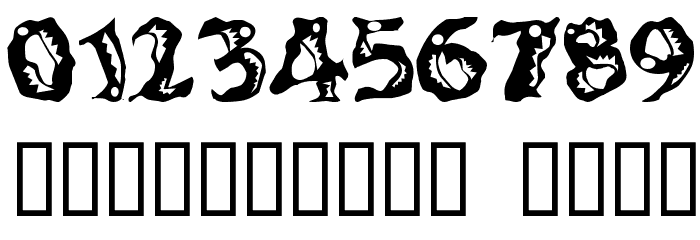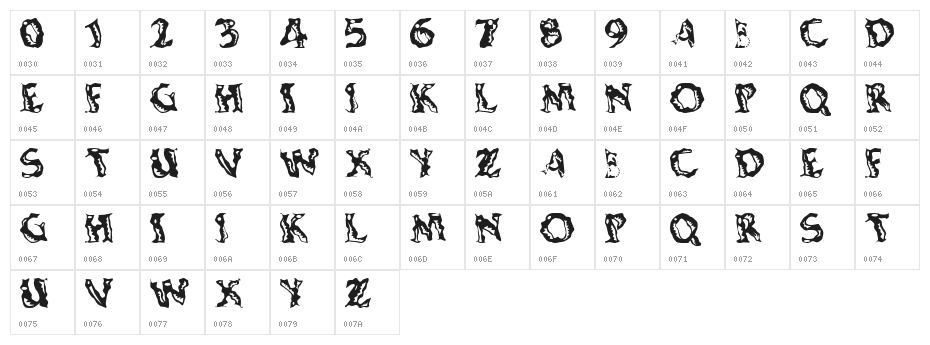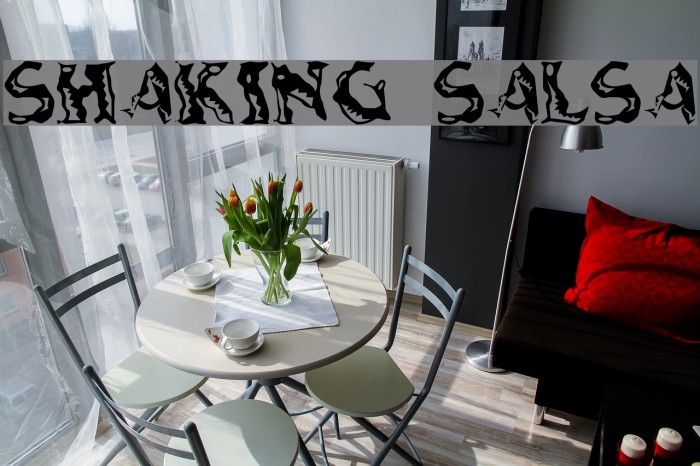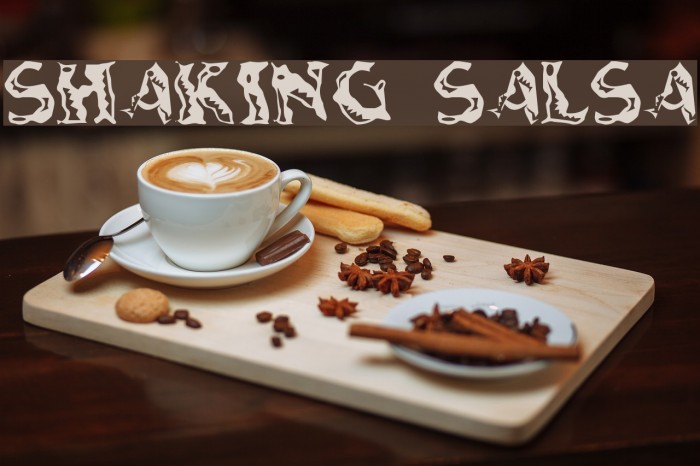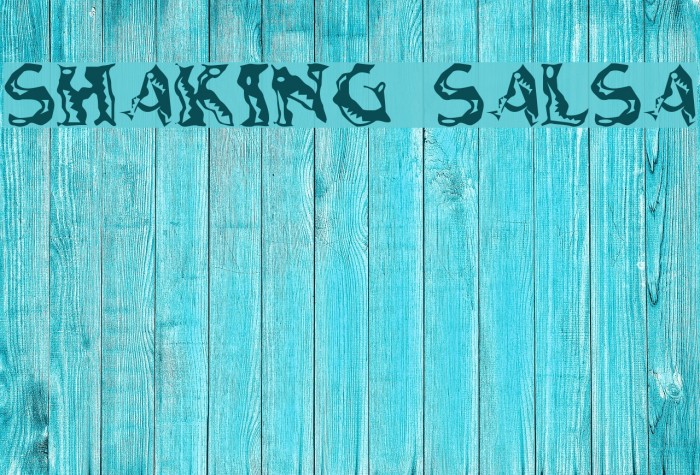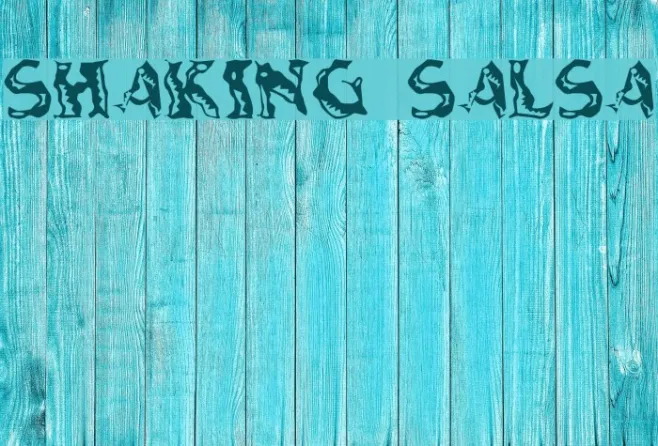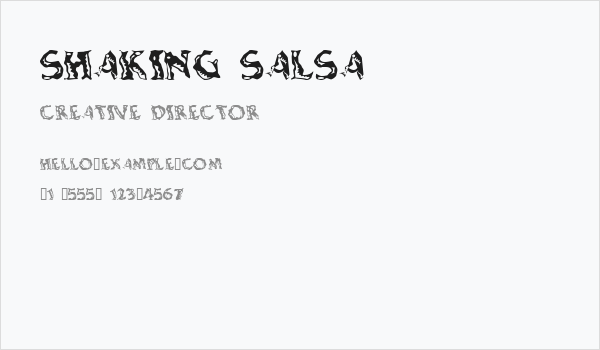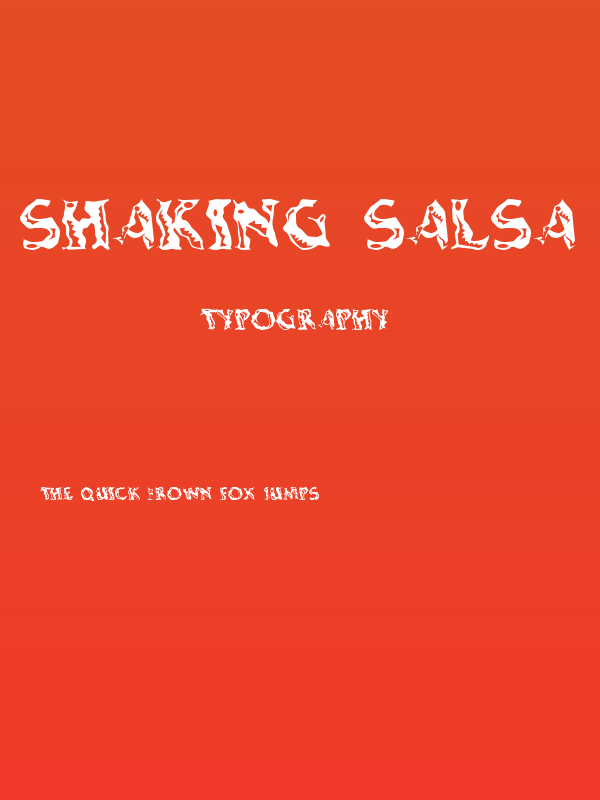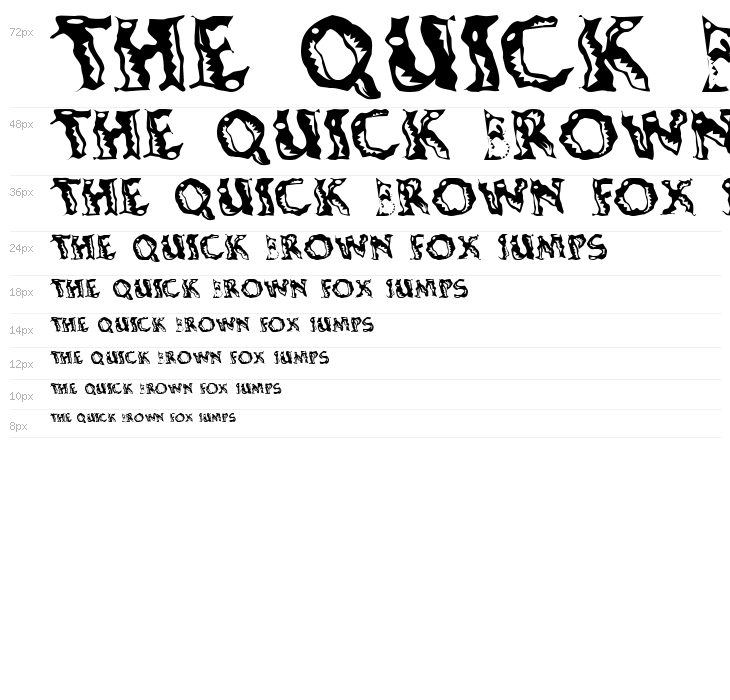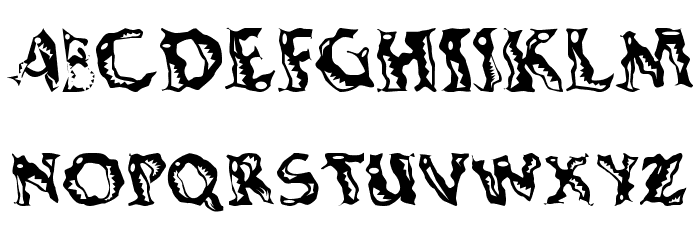
Shaking Salsa Font
Shaking Salsa Description
This font features a highly decorative and chaotic style, with each character appearing as if it's been carved or eroded. The letters have a jagged, uneven edge, giving them a dynamic and energetic feel. The uppercase and lowercase characters maintain this wild aesthetic, making them stand out with their unique, almost organic shapes. The numbers follow the same design principle, ensuring consistency across all characters. This font is perfect for projects that require a bold and unconventional look, such as Halloween-themed designs or edgy, artistic posters.
| Proposed Projects | Ideal for Halloween designs, edgy posters, album covers, and artistic projects. |